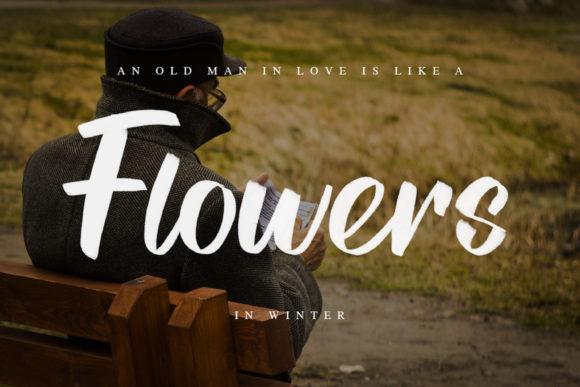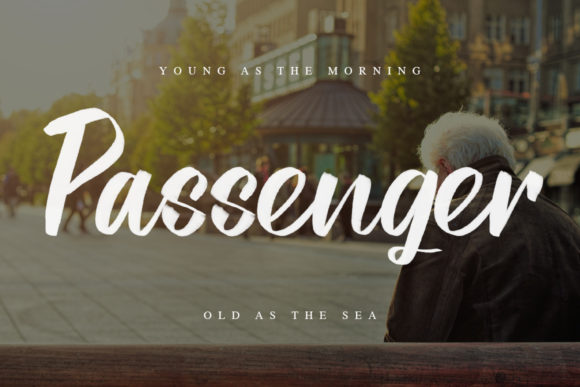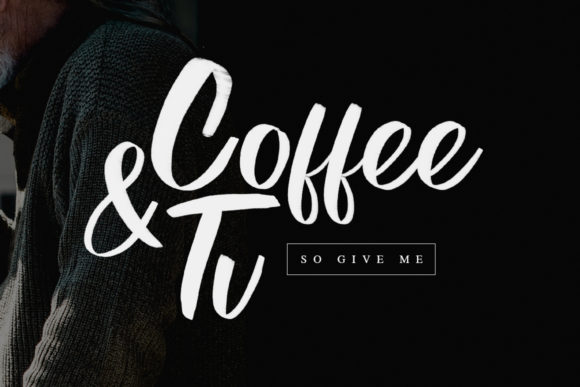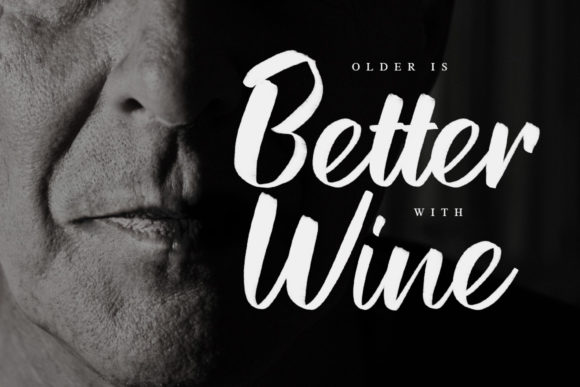
Introduction to Older Man Font
Have you ever been in the middle of a creative project, pouring your heart and soul into it, only to feel like something’s missing? That’s when I discovered the Older Man Font – a game-changing design resource that elevated my entire project to the next level.
With its bold and modern handwritten style, the Older Man Font is a breath of fresh air in the world of typography. Its completely different and timeless style is sure to captivate your audience and make your designs stand out. Whether you’re working on a personal project or a client brief, this high-quality font is an absolute must-have in your design arsenal.
Key Features of Older Man Font
- Unique, vintage-inspired design suitable for projects requiring a nostalgic feel
- Perfect for designers seeking a distinctive, older man-inspired aesthetic for their design projects
Honest Review: Older Man Font
As a designer, I’m always on the lookout for high-quality design resources that can elevate my creative projects. Recently, I had the chance to work with the Older Man Font, and I’m excited to share my honest review.
- The font’s unique, vintage aesthetic is perfect for projects that need a touch of nostalgia.
- The high quality of the font ensures that it looks great on both digital and print materials.
- The font’s limited character set may be a concern for designers who need to use it for extensive text-based projects.
- The lack of bold and italic variations may limit its use in certain design scenarios.
Overall, I’m impressed with the Older Man Font’s unique charm and versatility. While it may have some limitations, it’s a great choice for designers who need a high-quality, free font for their creative projects.
The Older Man Font is a high-quality design resource that can add a touch of elegance to your creative projects. With its transparent background, this font is perfect for use in a variety of applications, including graphic design, digital art, and even web design.
To get the most out of the Older Man Font, use it in combination with other design elements, such as images and graphics. You can also experiment with different font sizes, colors, and styles to create a unique look.
The Older Man Font is perfect for use in a variety of creative projects, including:
- Graphic novels and comic books
- Web design and digital art